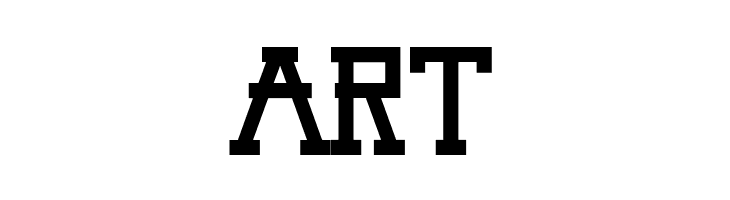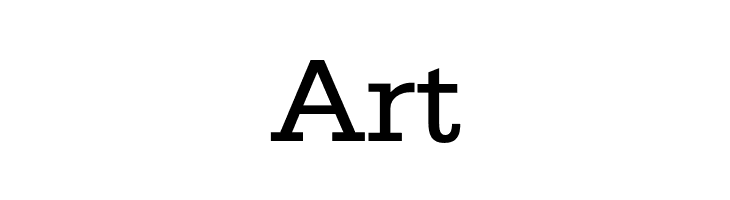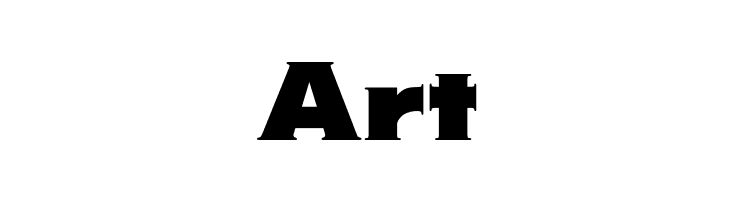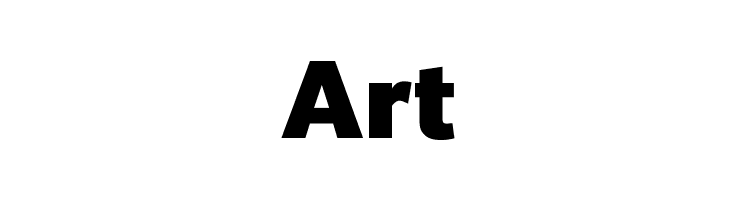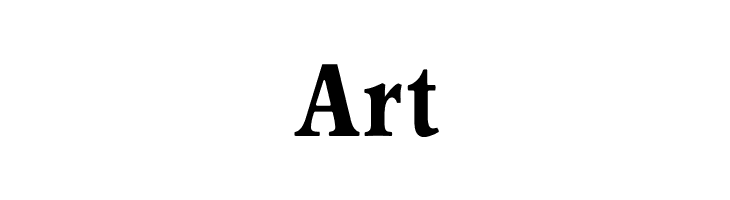
A bold, geometric slab serif font with strong, angular lines and a modern industrial aesthetic.
A bold, classic serif font with strong, well-defined characters.
A classic slab serif font with bold, block-like serifs and a strong, authoritative presence.
A bold, modern font with strong geometric shapes and clean lines.
A bold, condensed font with strong vertical emphasis, perfect for headlines.
A bold and impactful typeface with strong, uniform strokes.
A bold, modern typeface with strong, thick strokes and a clean, contemporary style.
A bold, serif font with strong contrast and slightly condensed letterforms.